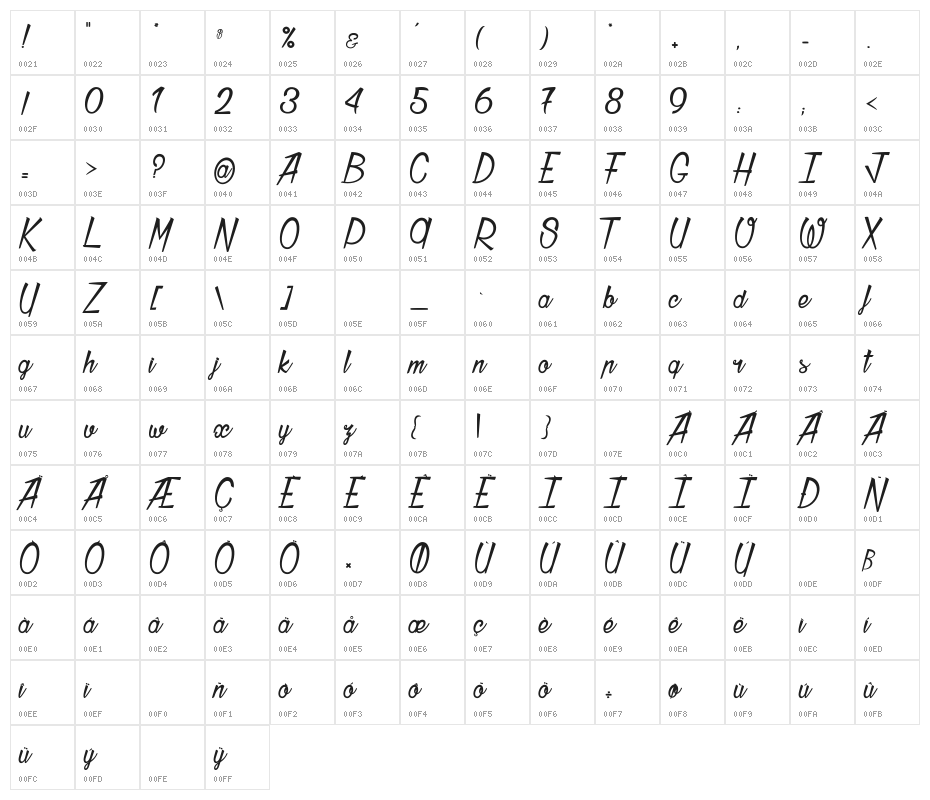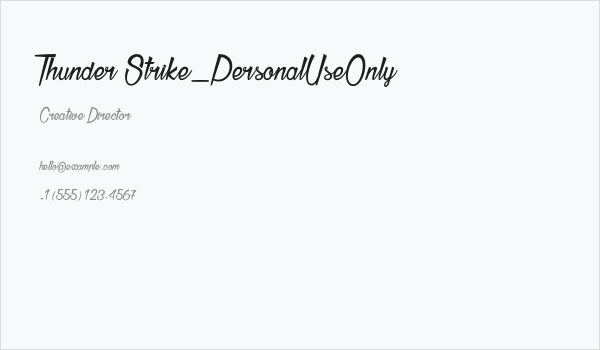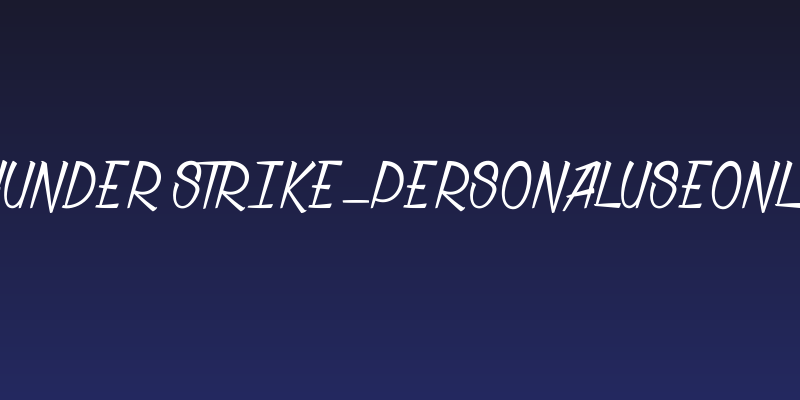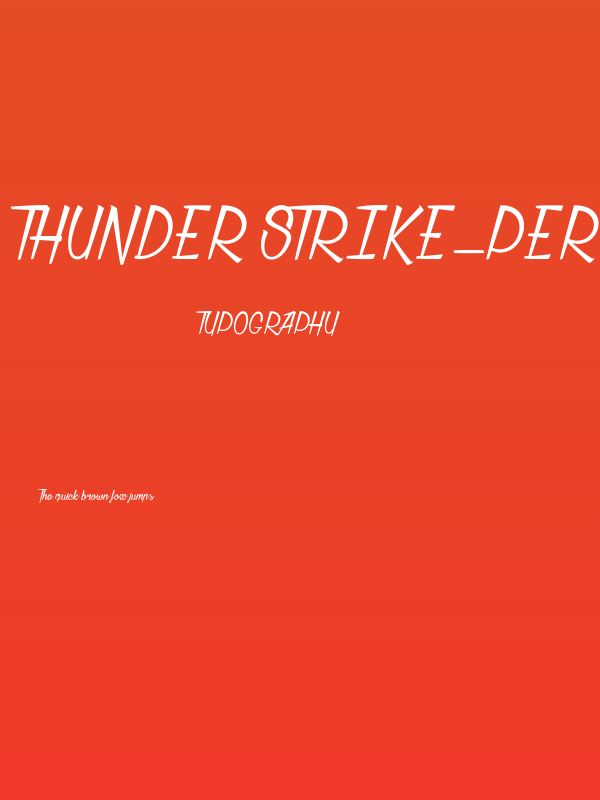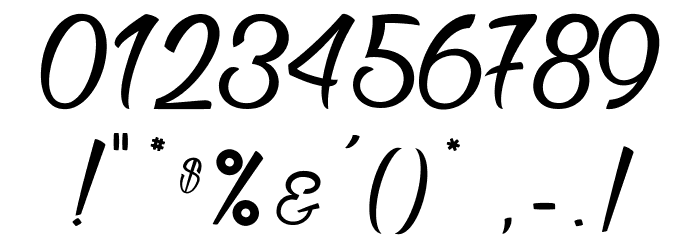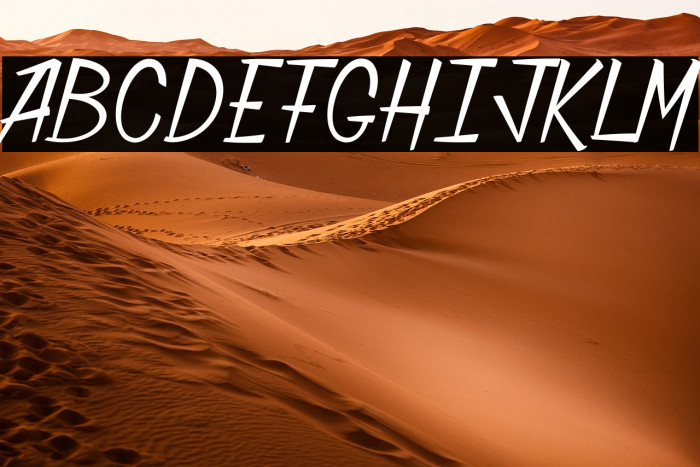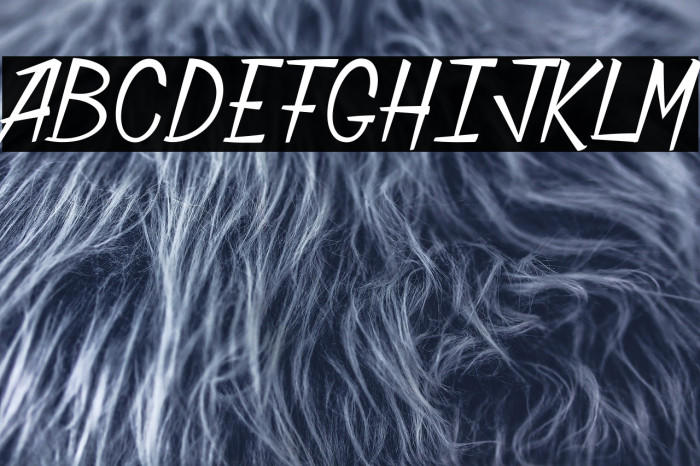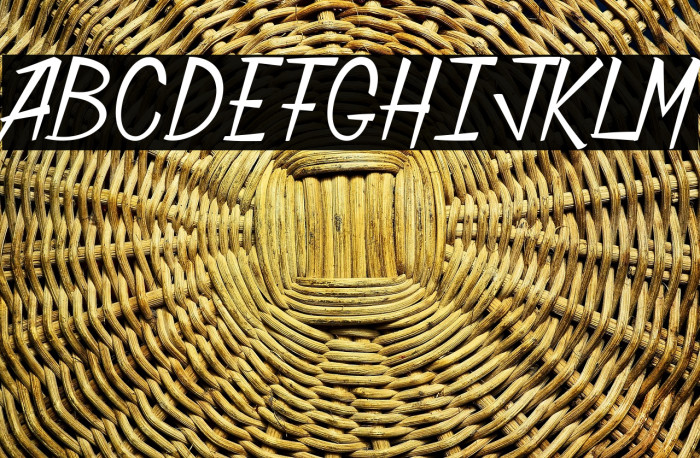
Thunder Strike_PersonalUseOnly Font
Thunder Strike_PersonalUseOnly Description
This dynamic and expressive font features a blend of sharp angles and smooth curves, creating a sense of movement and energy. The uppercase letters are tall and slightly slanted, giving a sense of forward motion, while the lowercase letters are more fluid and connected, resembling a cursive style. The numerals are bold and consistent with the overall aesthetic, maintaining the same energetic flow. Special characters are designed to complement the letters, with a mix of angular and rounded elements. This font is ideal for projects that require a bold and impactful presence, capturing attention with its unique style.
| Proposed Projects | Perfect for branding, posters, and headlines that need a bold and energetic style. |